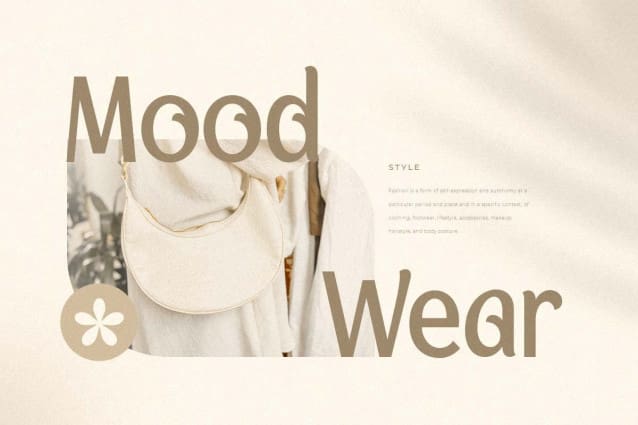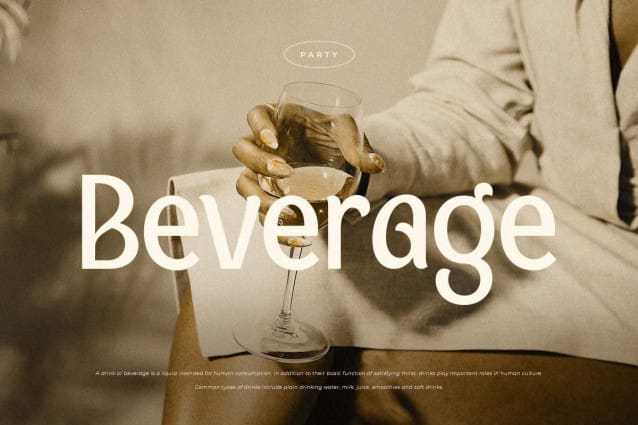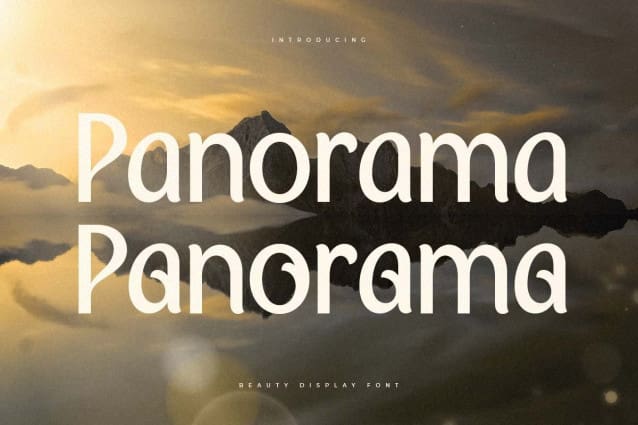
Panorama Font
Panorama Font is a Beauty Display Font. In a new generations, we analyze that any designer or brand owner need to make their brand standout. As our focus that analyze any typeface that helps to leverage any logo design to look more modern and unique. We prepared this font with any unique characters to help you create unlimited variations for your creative needs.